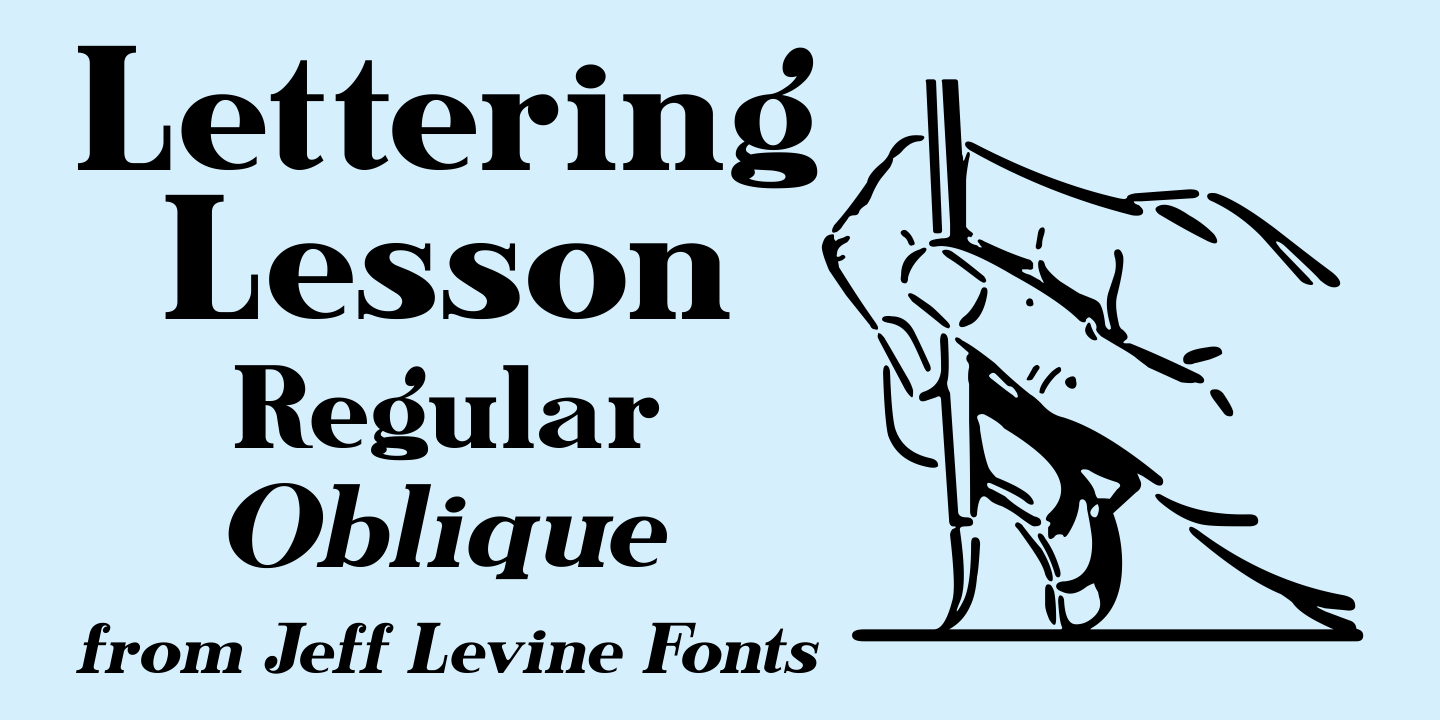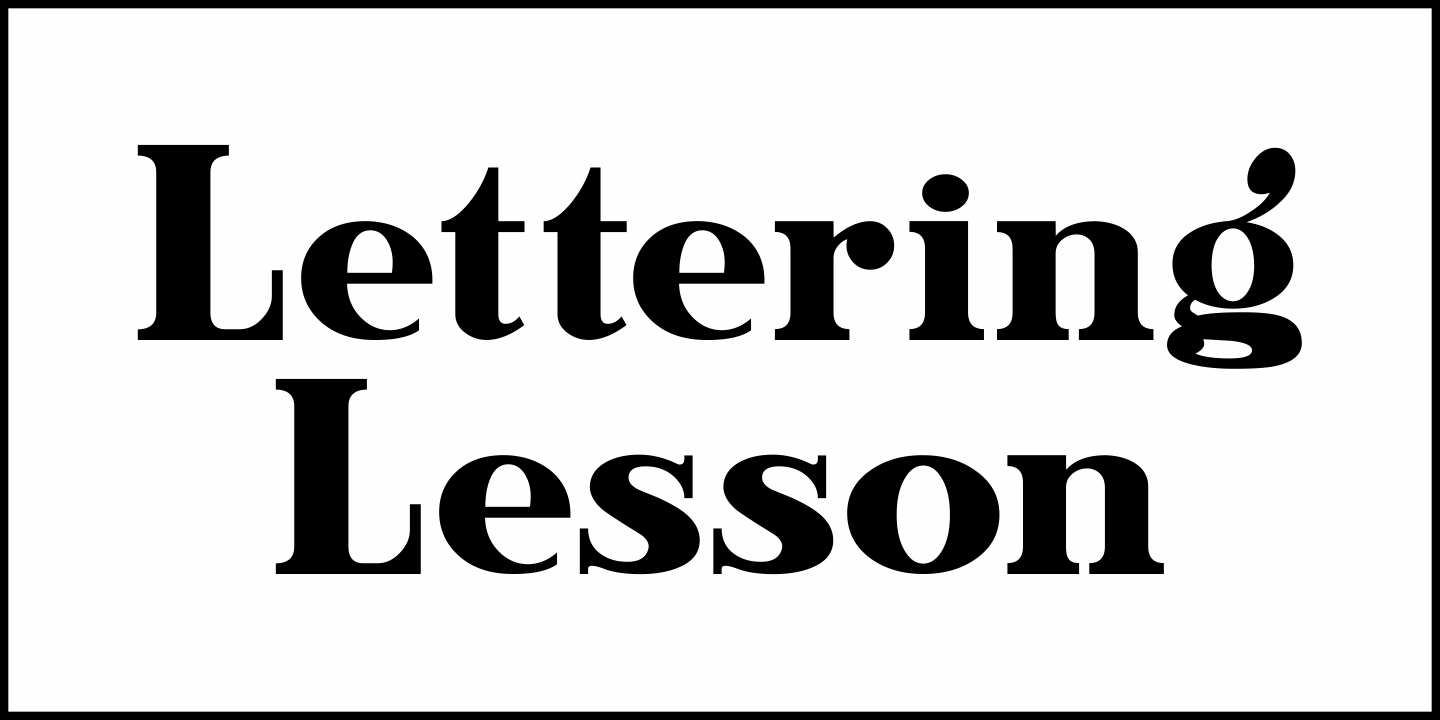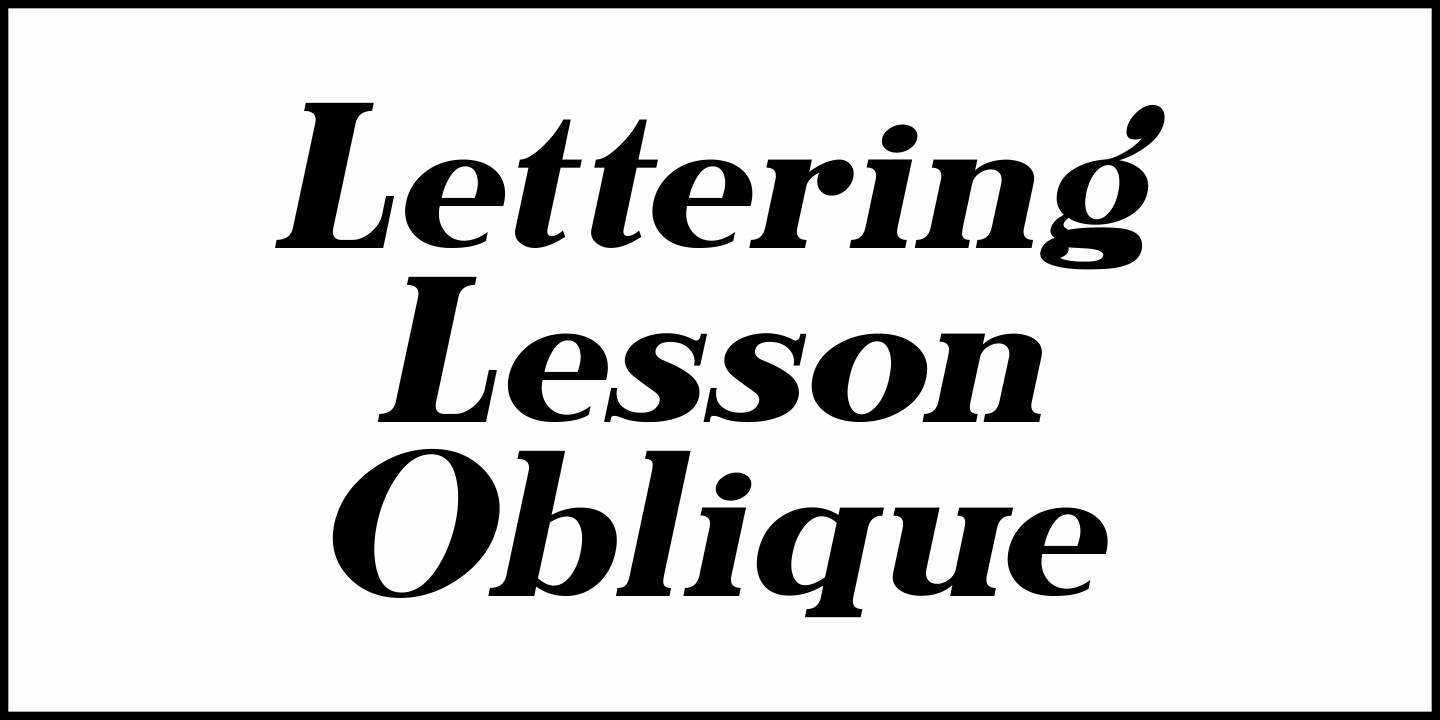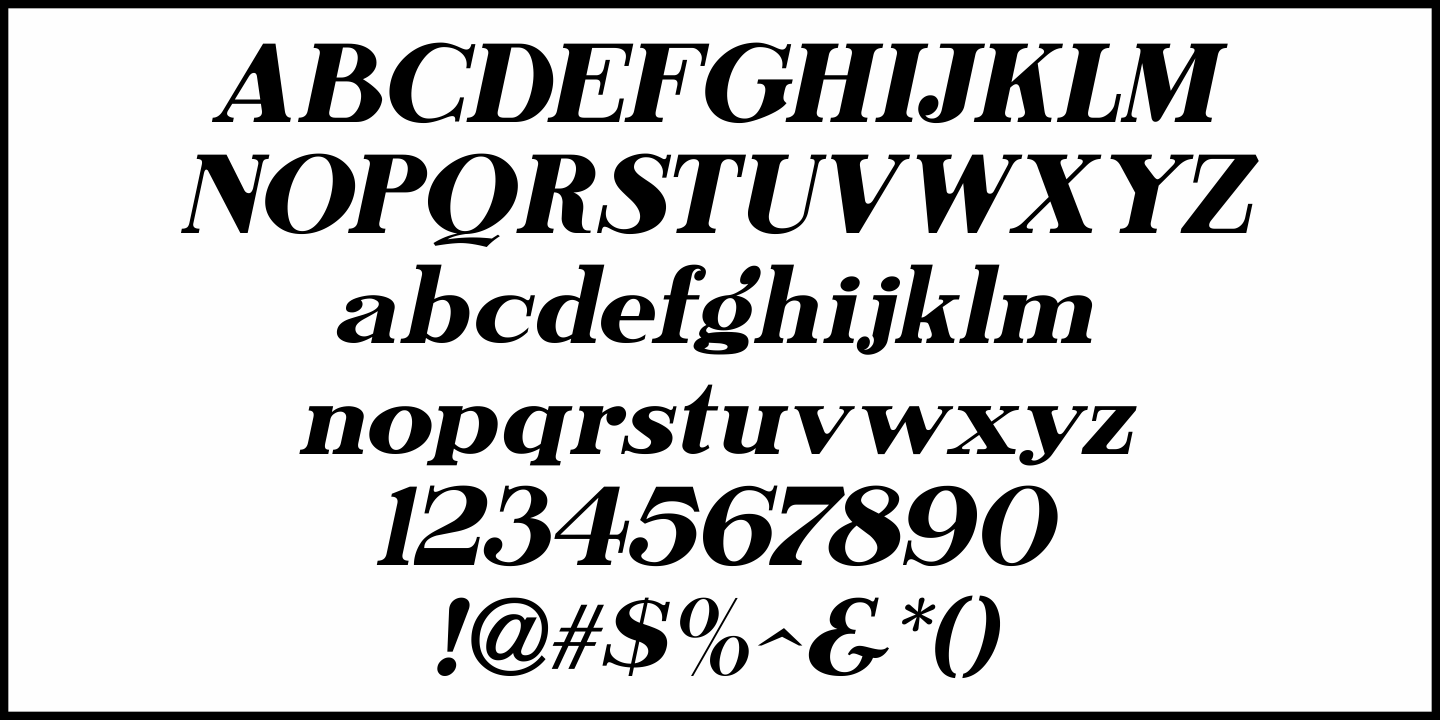
Lettering Lesson
Lettering Lesson JNL is a bold serif alphabet found within the pages of the 1922 instructional booklet from the St. Louis Show Card School, and is available in both regular and oblique versions.